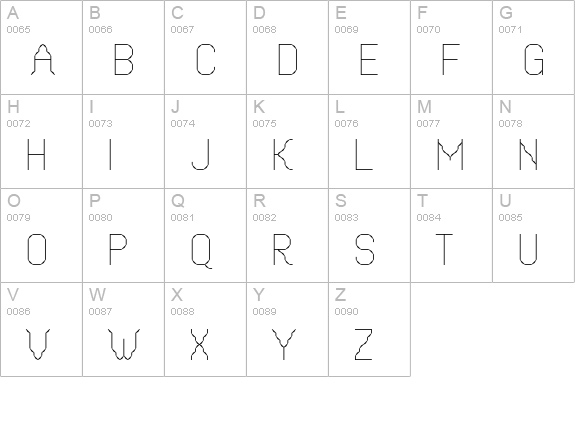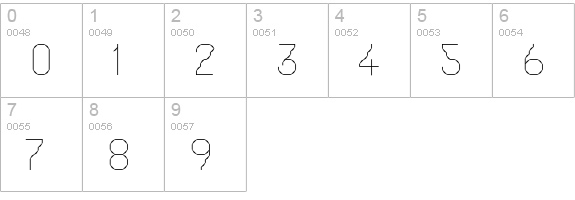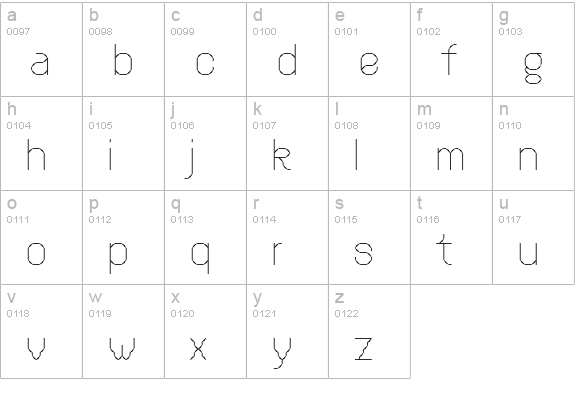
Mantis Font Details
Mantis font is a stunning display typeface that exudes elegance and sophistication. With its sleek lines and stylish curves, this font is perfect for any design project that requires a touch of class. What makes Mantis font even more impressive is that it is not only visually appealing, but also free! Yes, you read that right. This font is freely available for download at FontsMarket.com, making it accessible to designers and creatives around the world. Whether you are designing a logo, creating a stunning website, or working on a branding project, Mantis font will add a touch of professionalism and refinement to your work. Its versatile nature allows it to be used in a variety of contexts, from headlines to body text, ensuring that your message is communicated with clarity and style. The clean and crisp lines of Mantis font make it highly legible, even at smaller sizes. This makes it an excellent choice for print materials such as brochures, business cards, and posters. Its timeless appeal ensures that your designs will remain fresh and contemporary for years to come. So why wait? Download Mantis font for free today at FontsMarket.com and elevate your designs to new heights. With its stunning visual appeal and versatility, this font is sure to make a lasting impression on your audience. Don't miss out on this fantastic opportunity to enhance your creative projects with Mantis font – the perfect blend of style and accessibility.